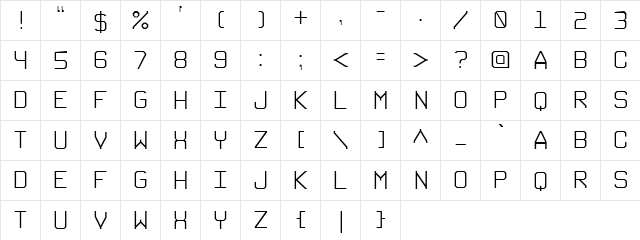
Gruppe B Light
| Designer | Boris Moser |
Design Context for Gruppe B Typeface
Gruppe B offers clean, dependable letterforms without strong stylistic allegiance, making it a practical choice for designers who need flexibility. Its slender proportions lend an understated elegance to any composition.
Pro Tip: Use Gruppe B in both headline and body roles to test its range before committing to a single application.